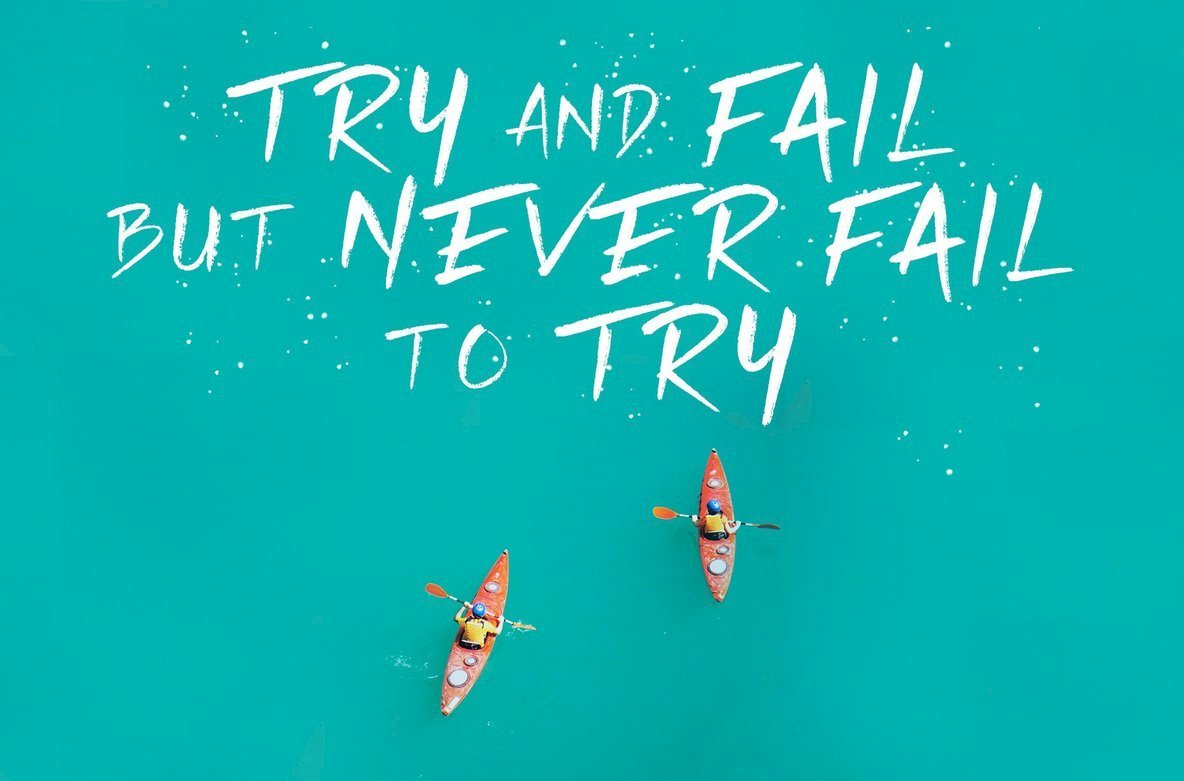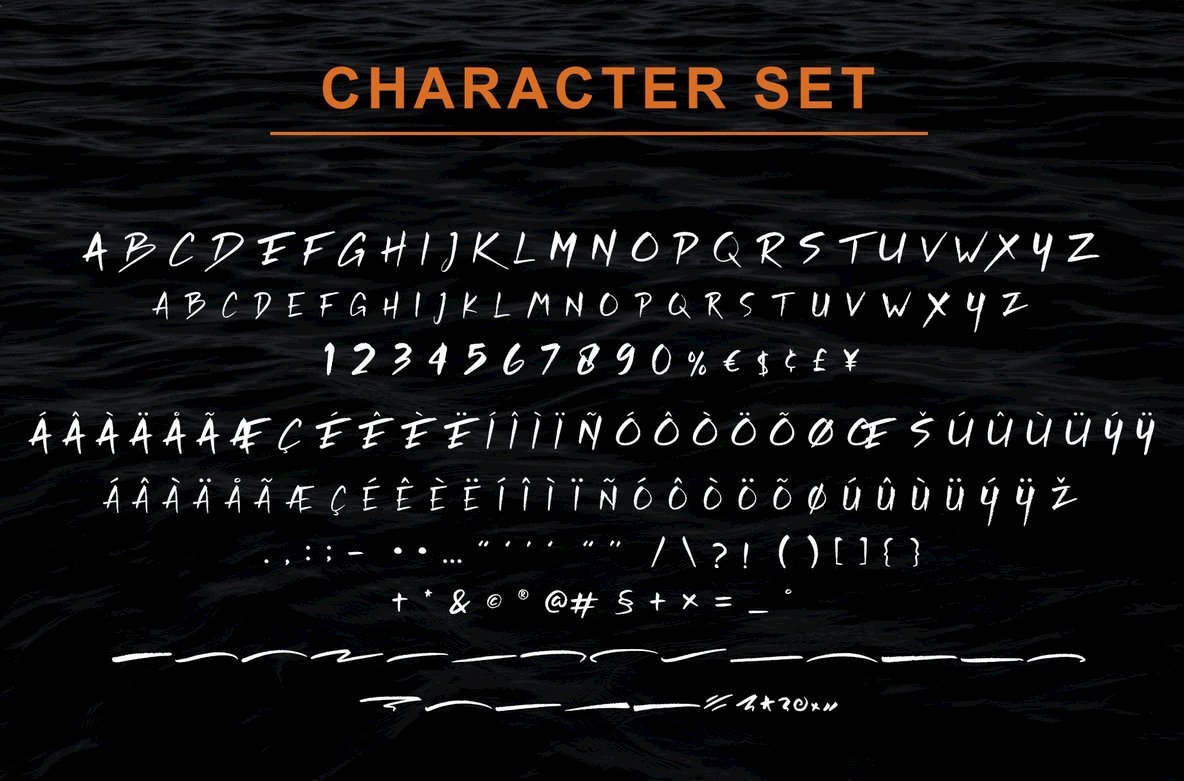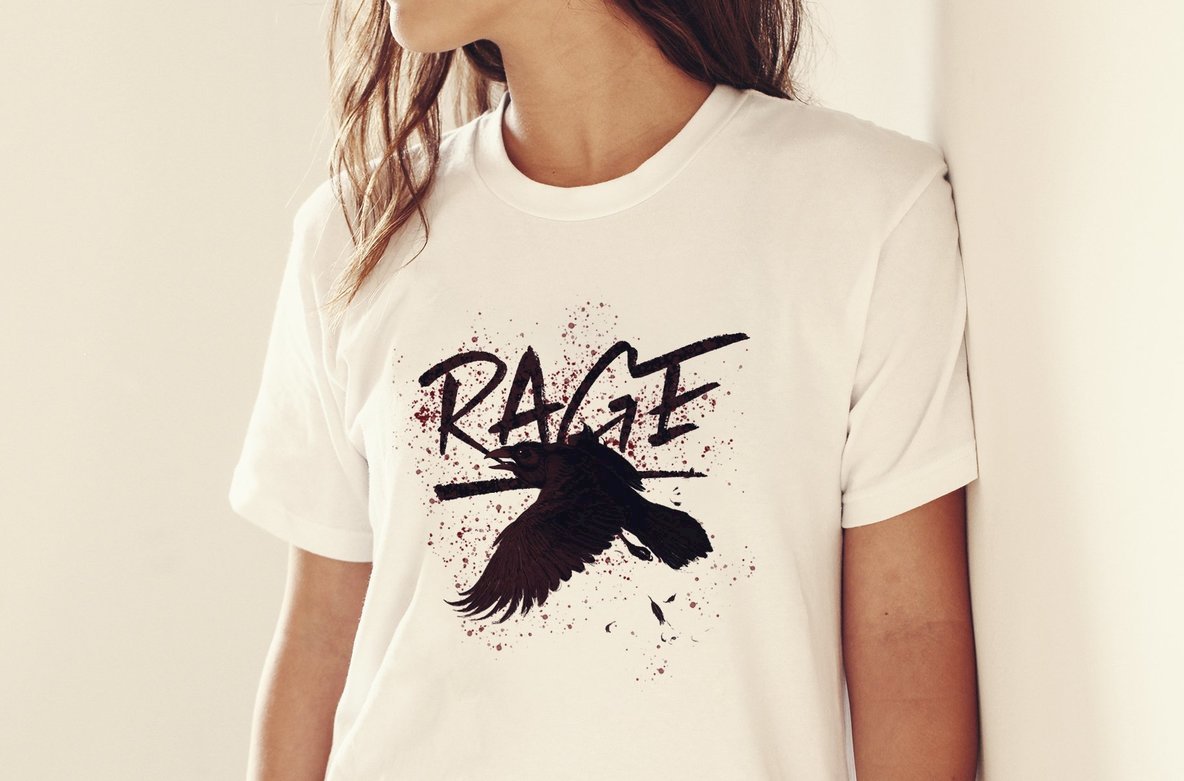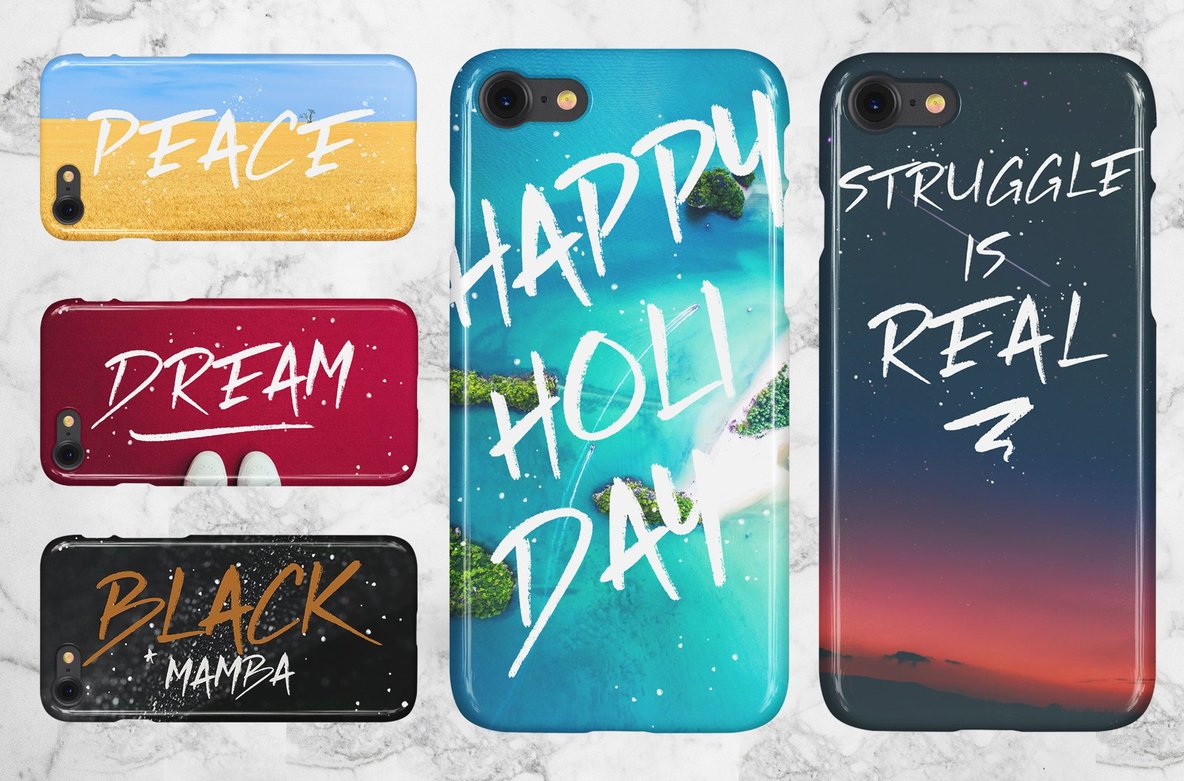
Rickies Font
Rickies
Rickies brings the authenticity of handwritten design to digital spaces, making it an ideal choice for those aiming to convey upscale chic. This brush font captures the essence of real handwriting, perfectly suited to enhance fashion, e-commerce brands, or trend blogs. Wedding boutiques and businesses seeking a refined look will find Rickies indispensable. Rickies stands out in a variety of contexts, from logo creation and greeting cards to branding and typographic art. It's a go-to for name cards, stationery, and design titles, providing a unique flair to blog headers and quotes. This font seamlessly adapts to modern envelope lettering, book design, and hand-drawn themes. Features:Rickies: A Brush Font with Handwritten Expression